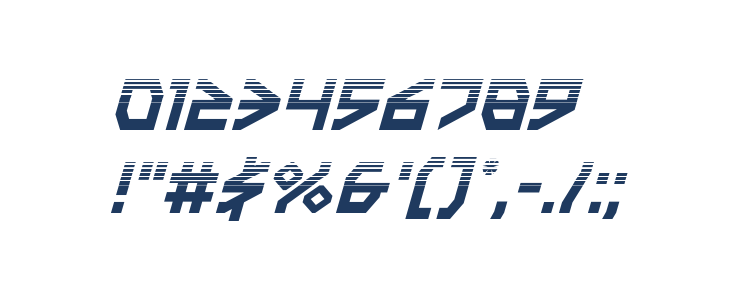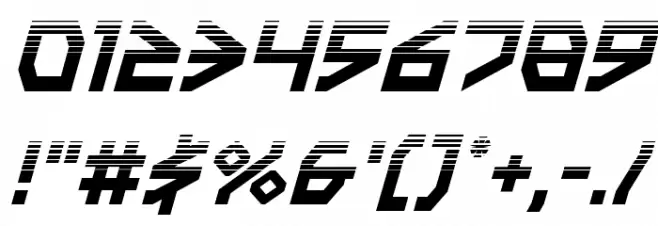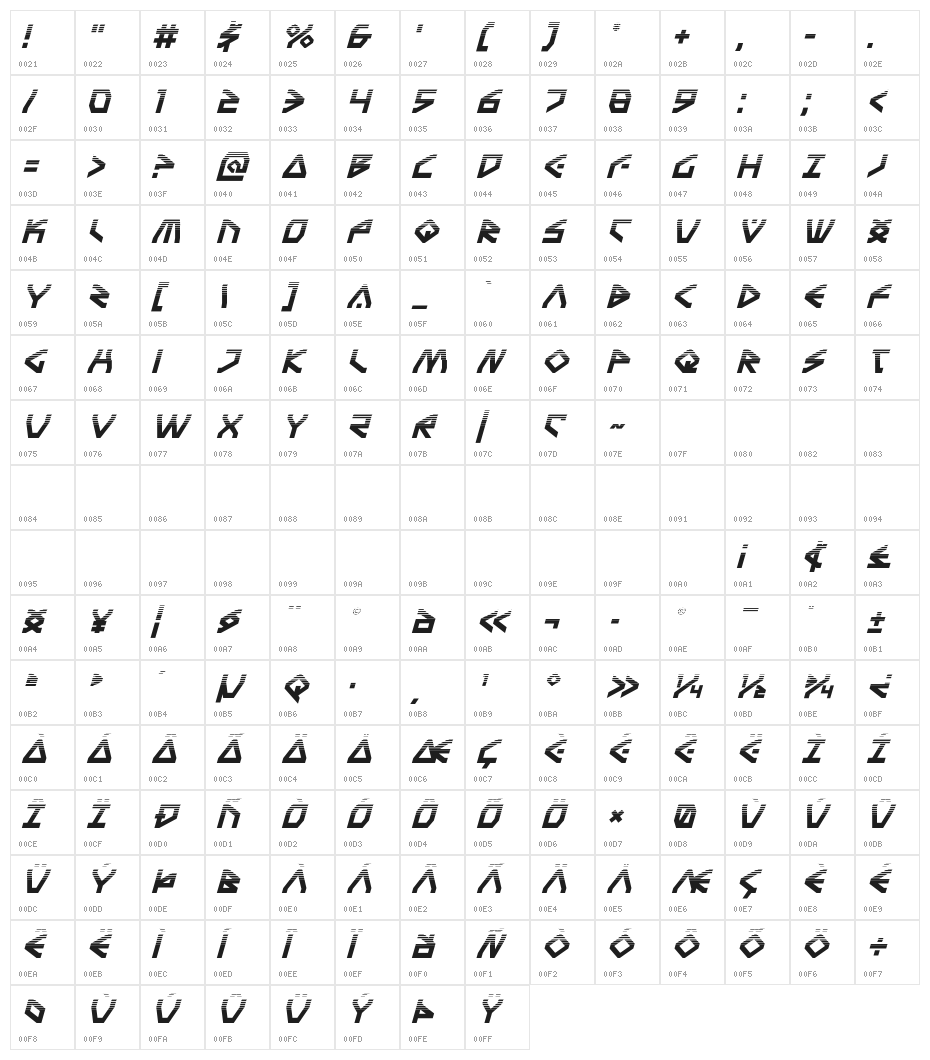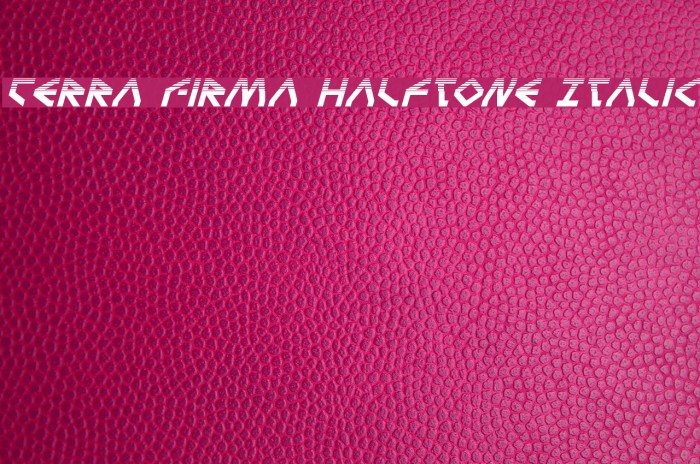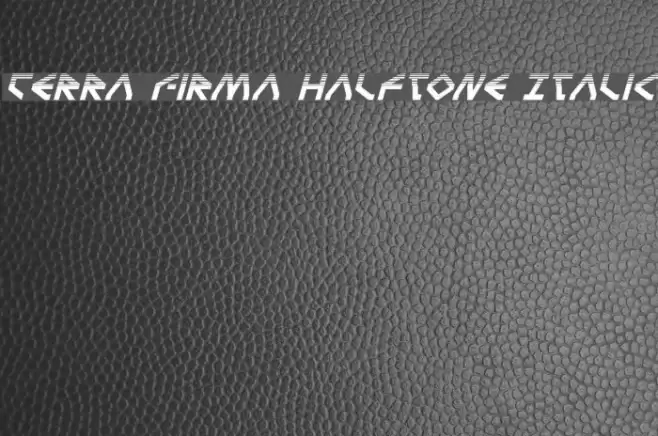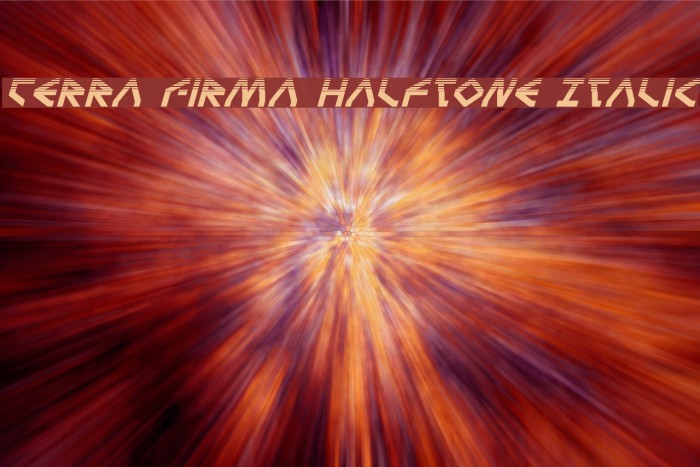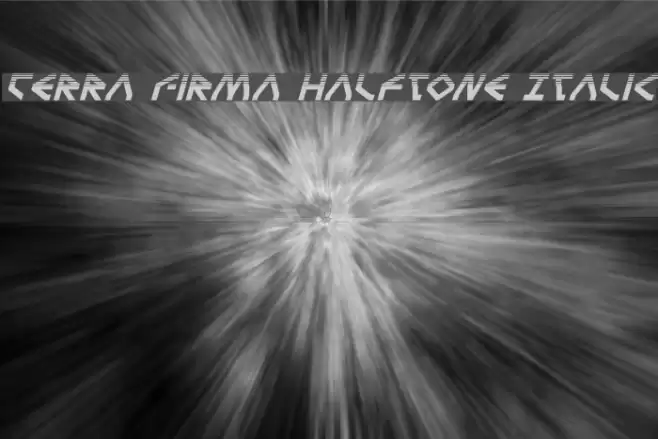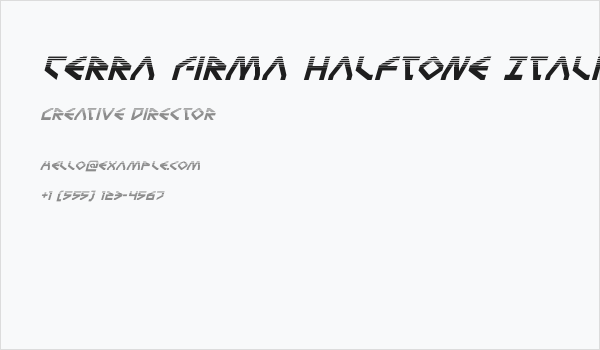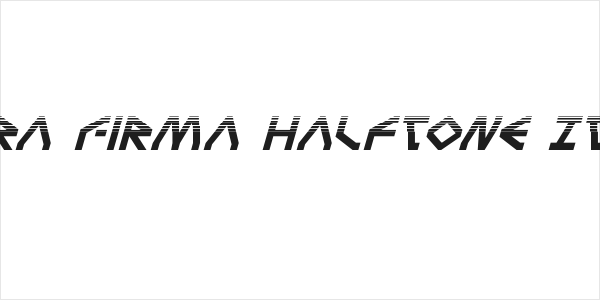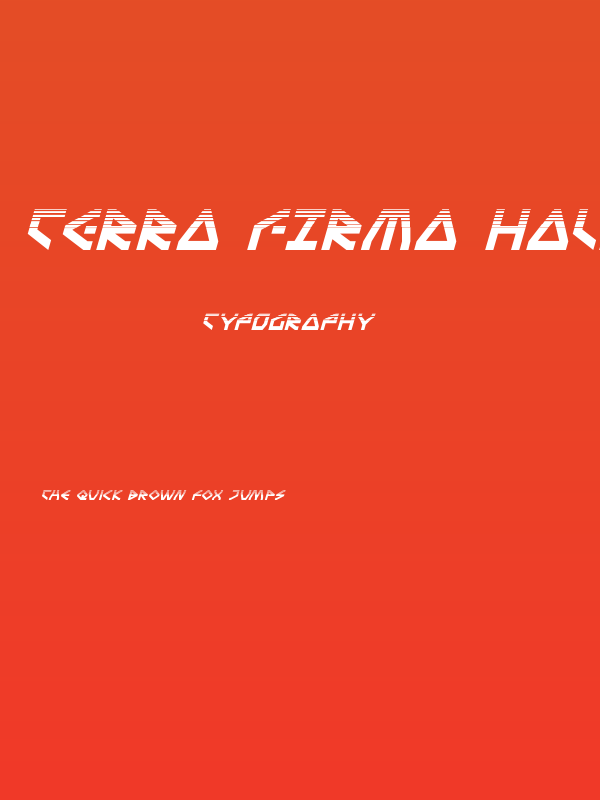
Terra Firma Halftone Italic Font
Terra Firma Halftone Italic Description
This font features a bold, futuristic design with a halftone effect that gives it a unique, dynamic appearance. The characters are italicized, adding a sense of motion and speed. The angular, geometric shapes are accentuated by the striped pattern, creating a striking visual impact. This font is highly stylized, making it ideal for projects that require a modern and edgy look. The uppercase and lowercase letters maintain a consistent style, while the numbers and special characters are designed to match the overall aesthetic. The font's distinctiveness makes it suitable for attention-grabbing headlines and logos.